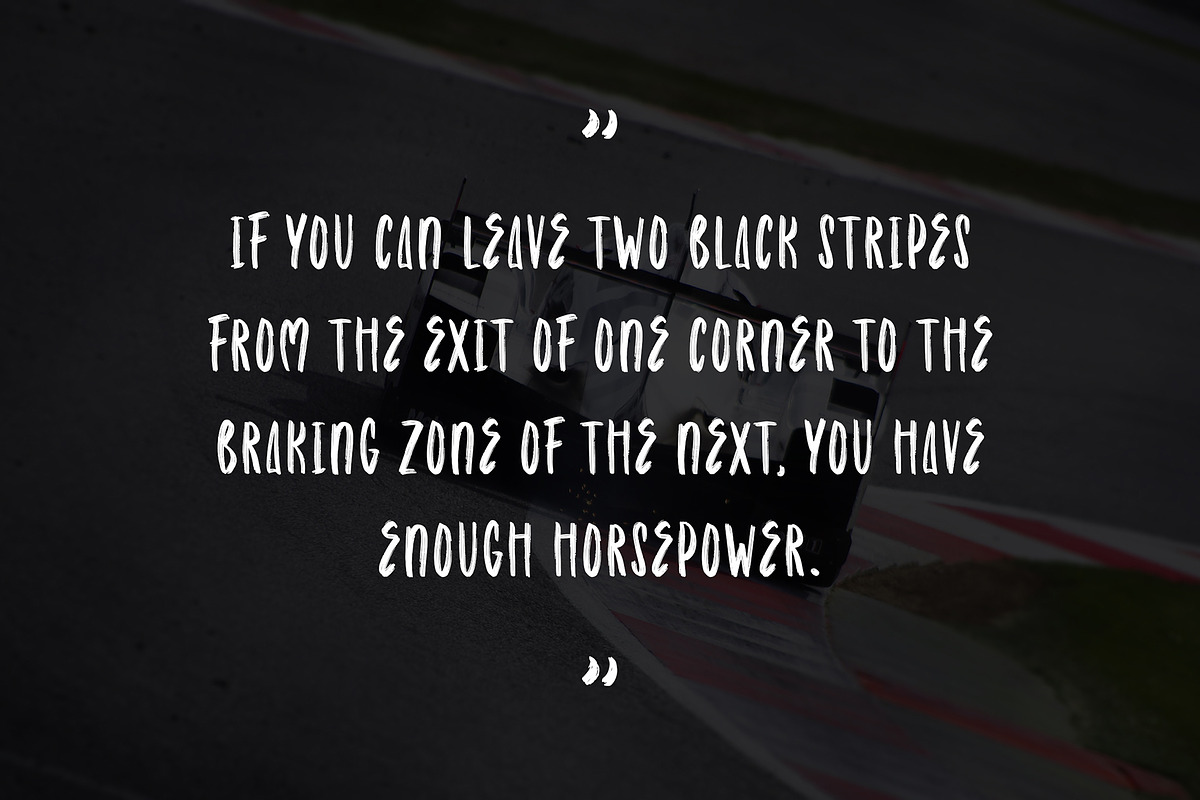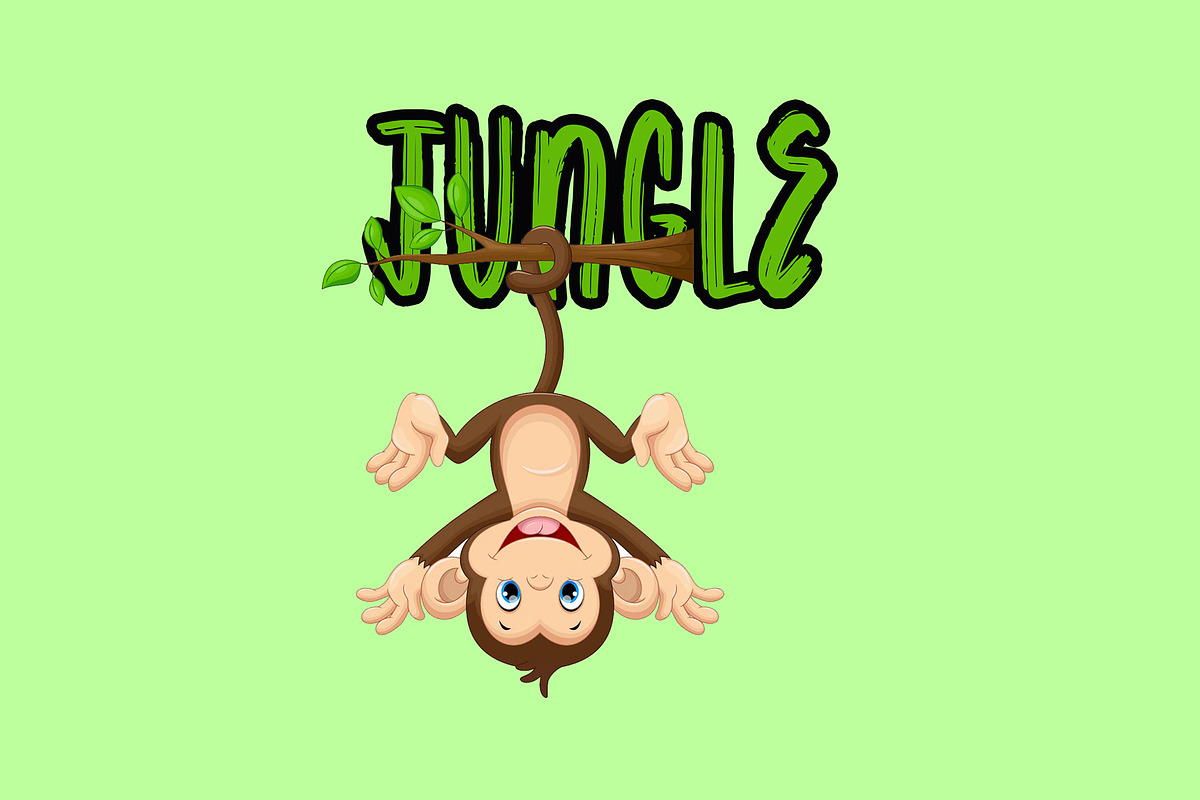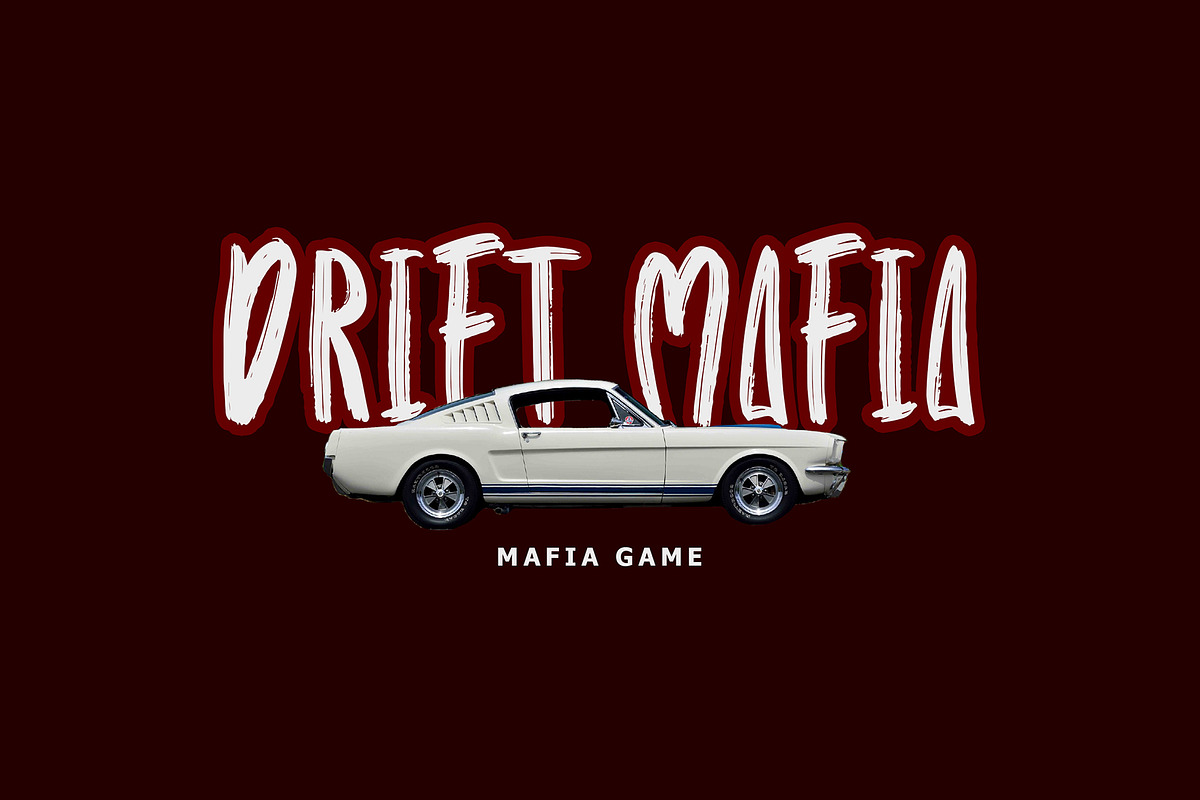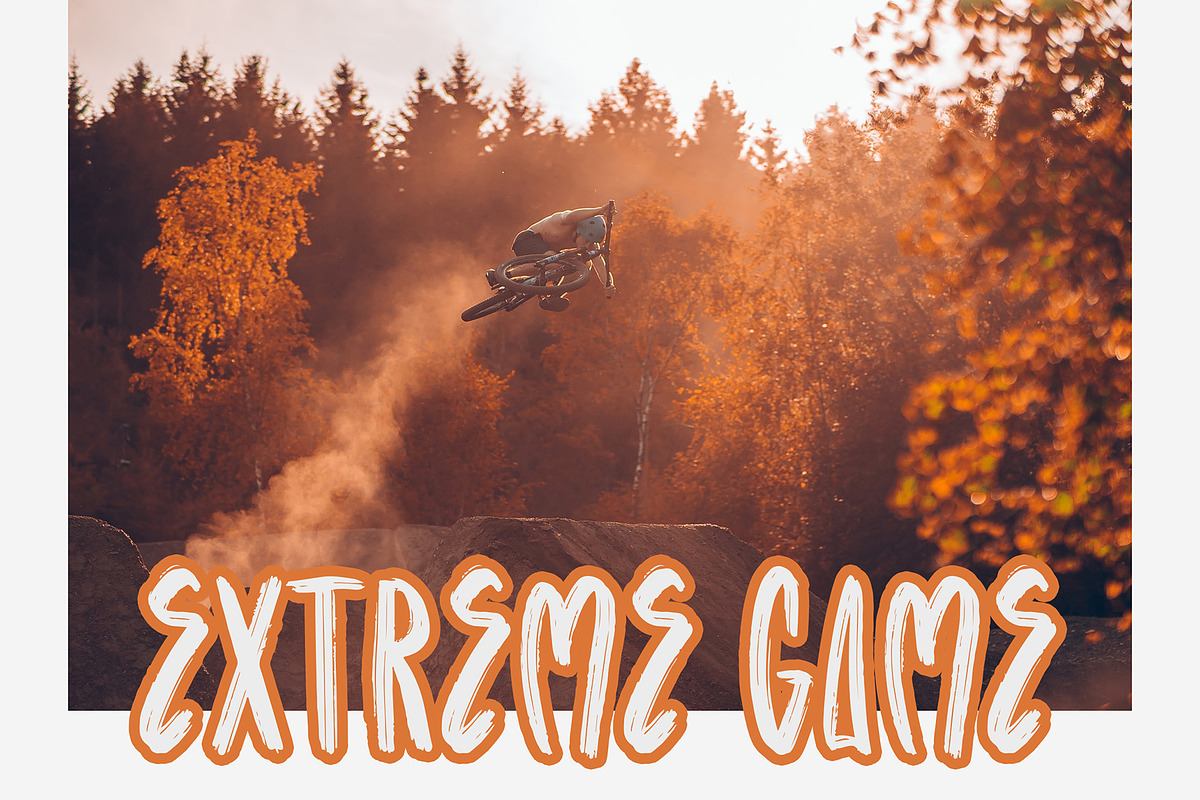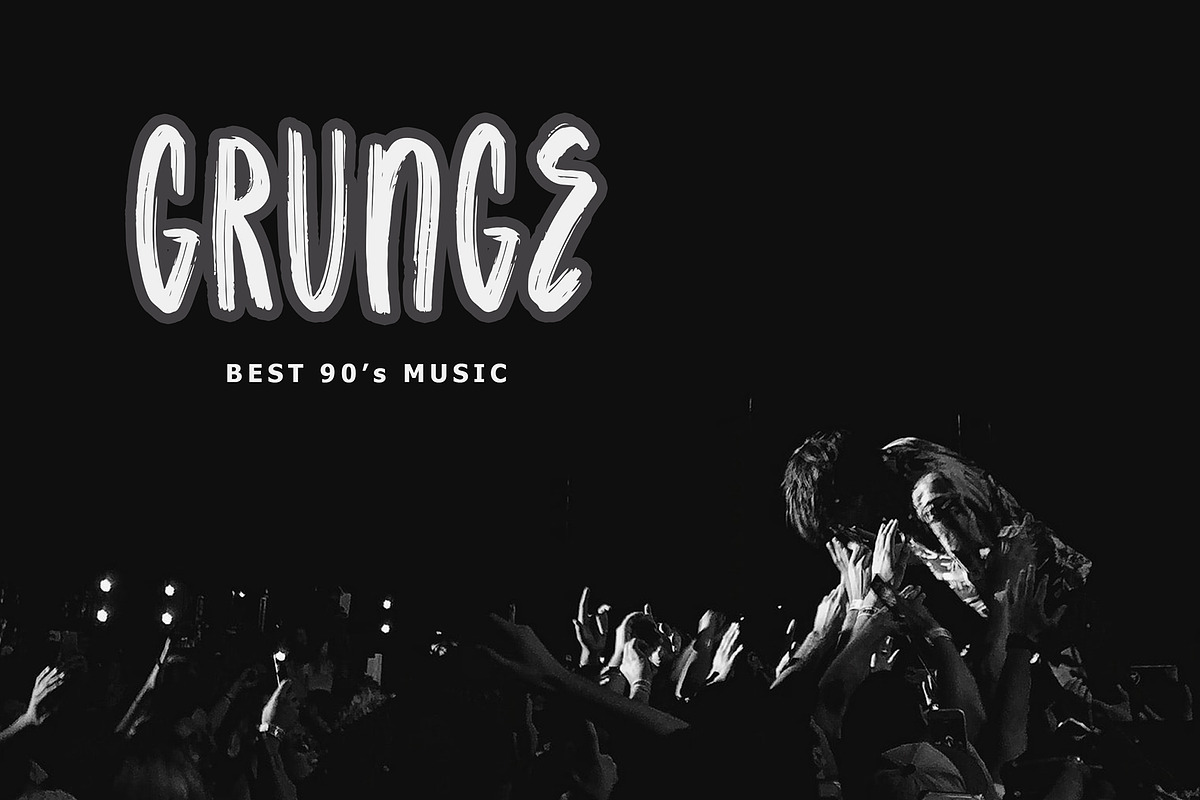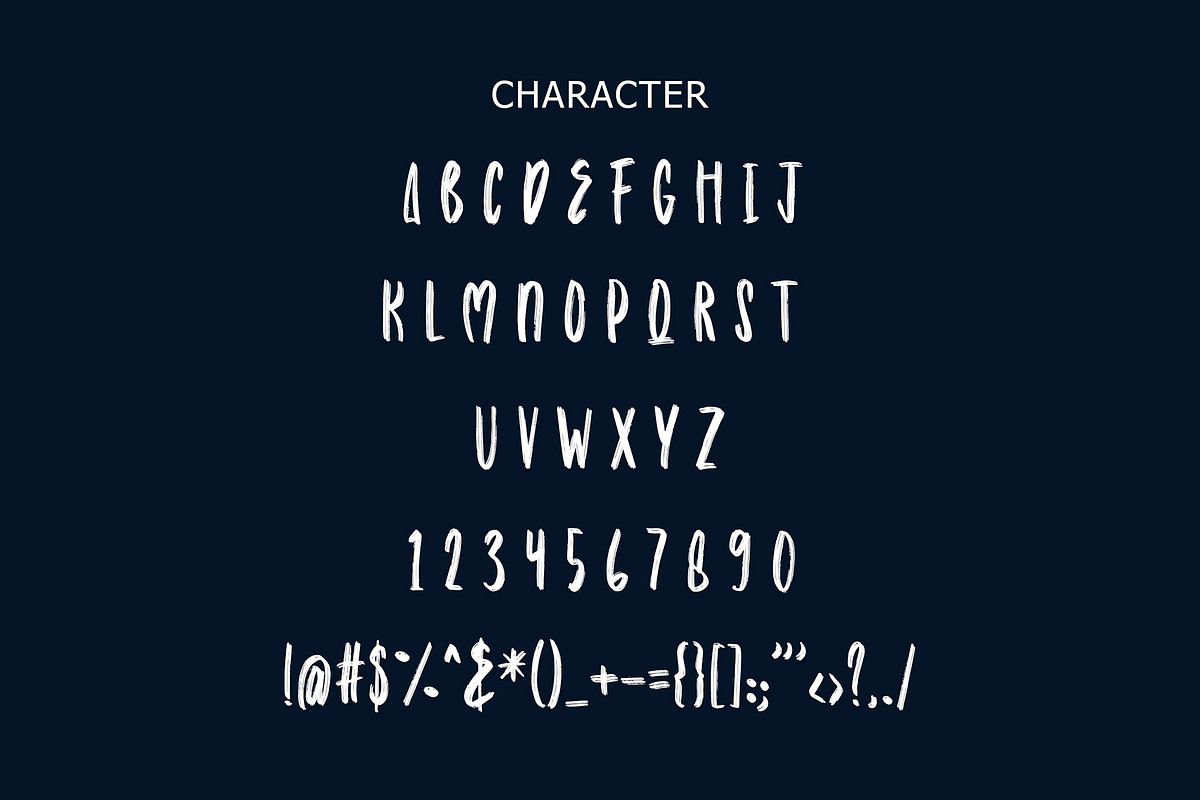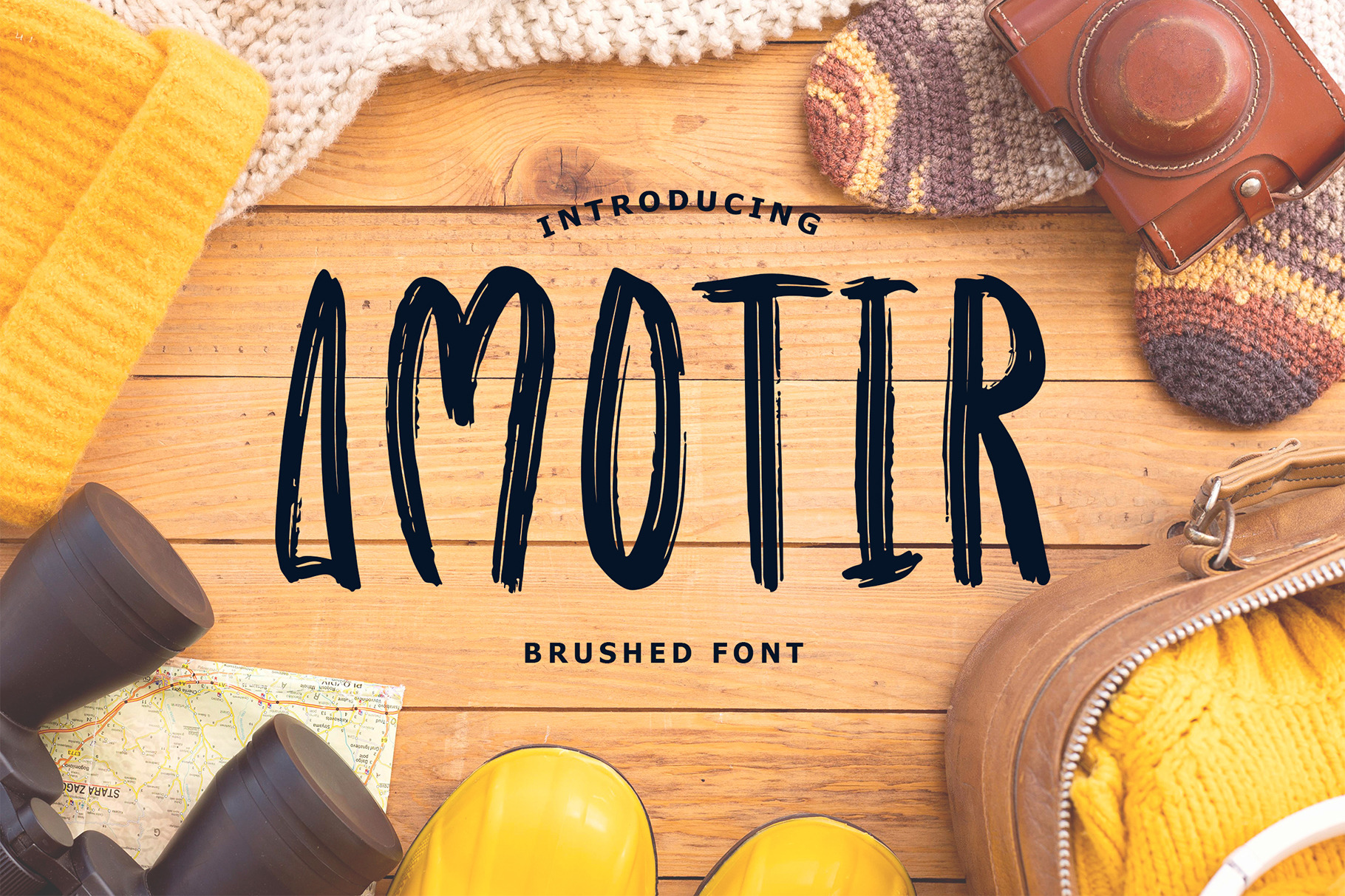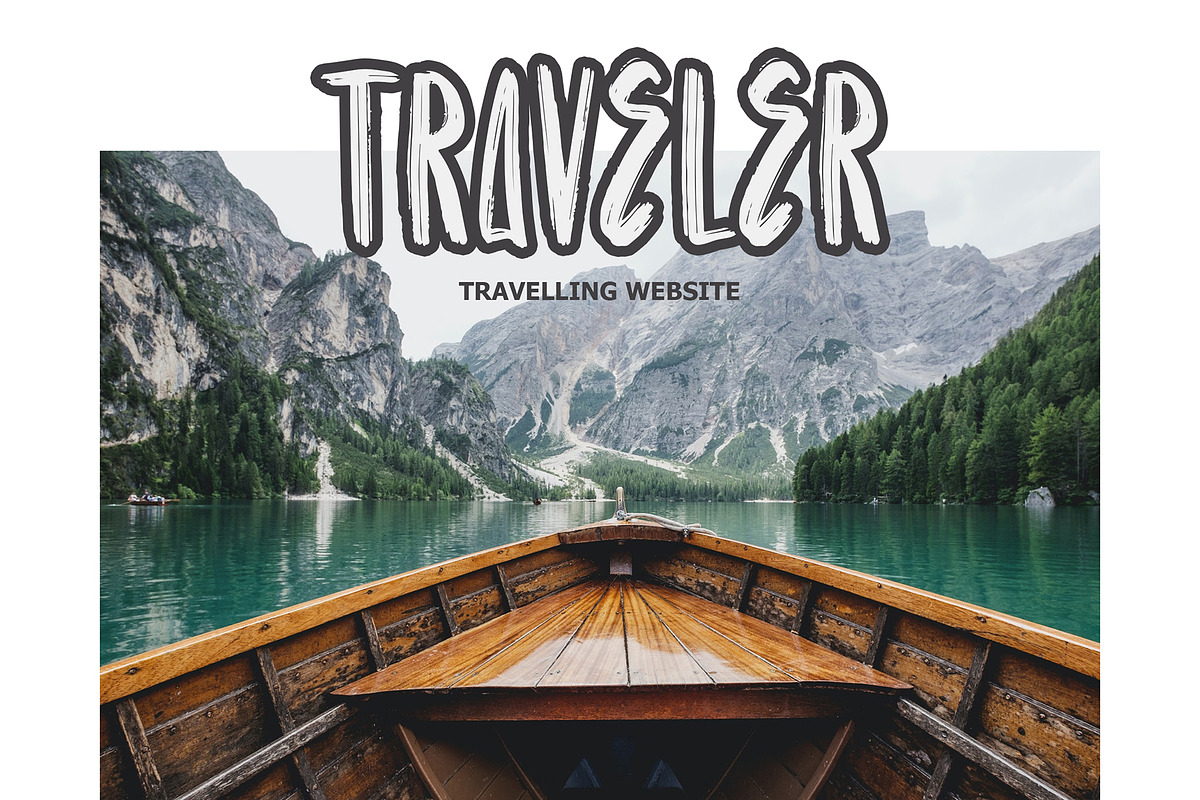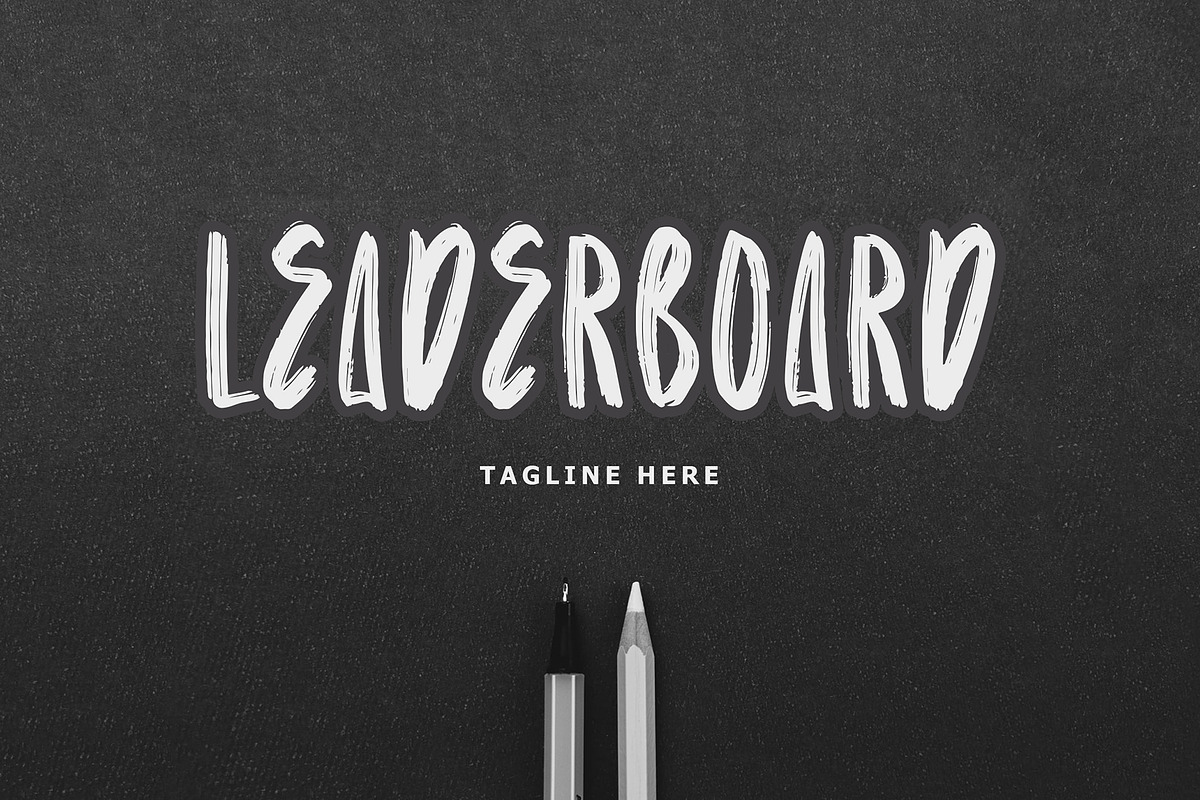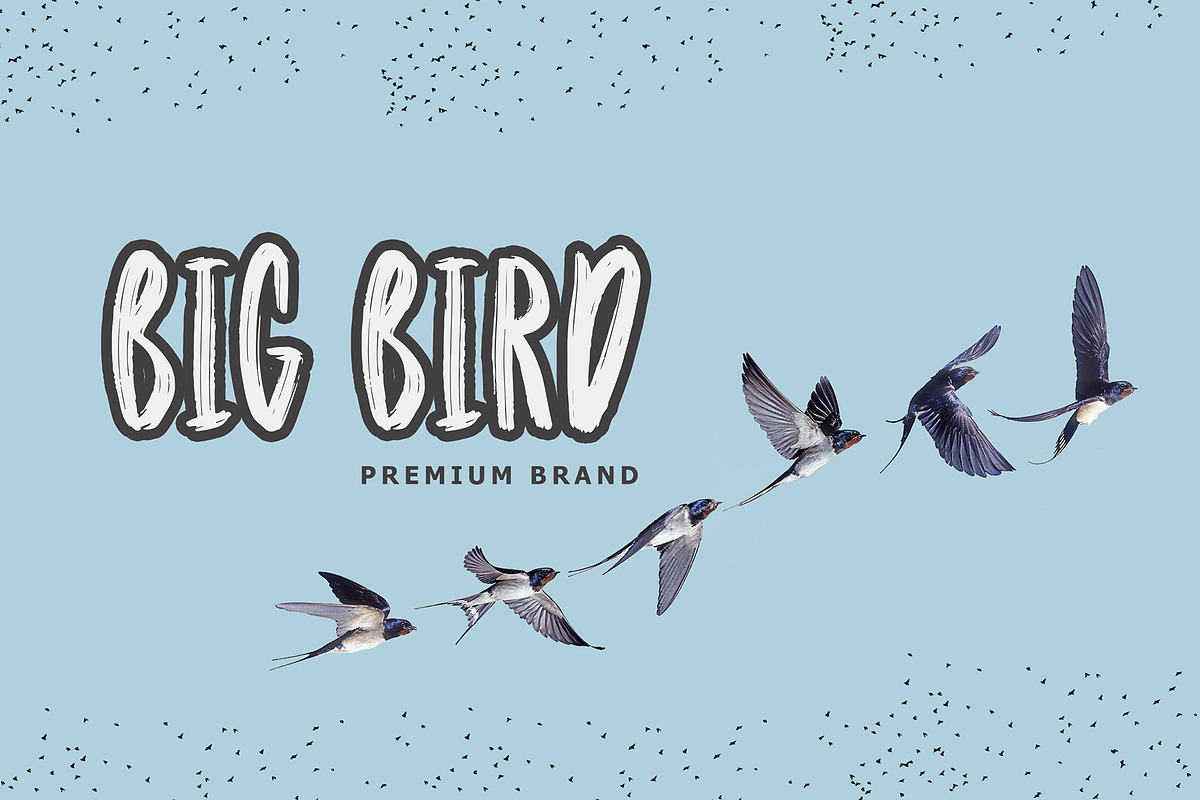
Amotir Bold Brush Display Font
Amotir Bold Brush Display Font is a handwritten font with a bold brush style. This font perfect for branding or events projects, logo, T-shirt designs, social media posts, advertisements, product packaging, product designs, label, watermark, invitation, stationery, and any projects.
This font is also fit for kids, fitness and gym, extreme sport, car racing, BMX, skateboard, trial, trial, Xtreme travel, and many more!